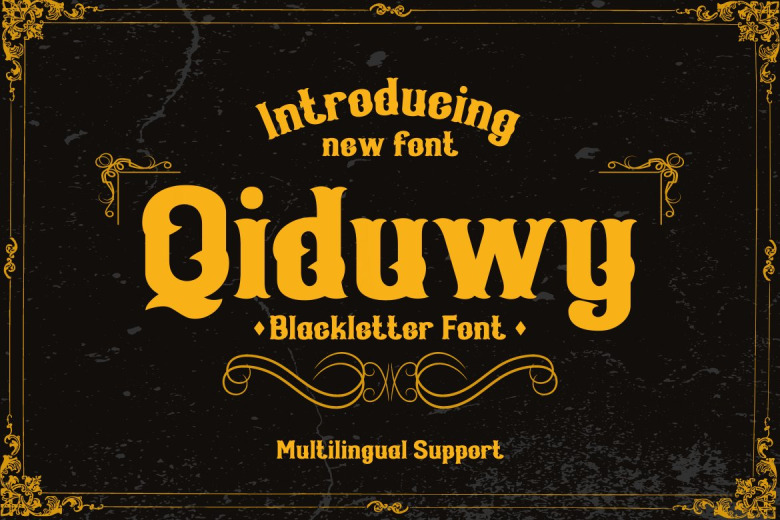
Qiduwy Font
Qiduwy Blackletter Font is a blackletter font that looks like it has come right from the future. This type of font is perfect for making retro-style label designs, stamps, badges, Oktoberfest posters, box packing, titles, beer, logos, barbershops, whiskeys, tattoos, music, films, certificates, and more. It gives the impression of looking bleak and depressing.
Thick black lines give it a robust and confident appearance. It has a more abstract appearance owing to its thick, strong lines; Wide, bold lettering adds instant prestige. Classy and sophisticated corners and edges. Ideal for that bleak, morbid appearance.
Qiduwy Blackletter Font